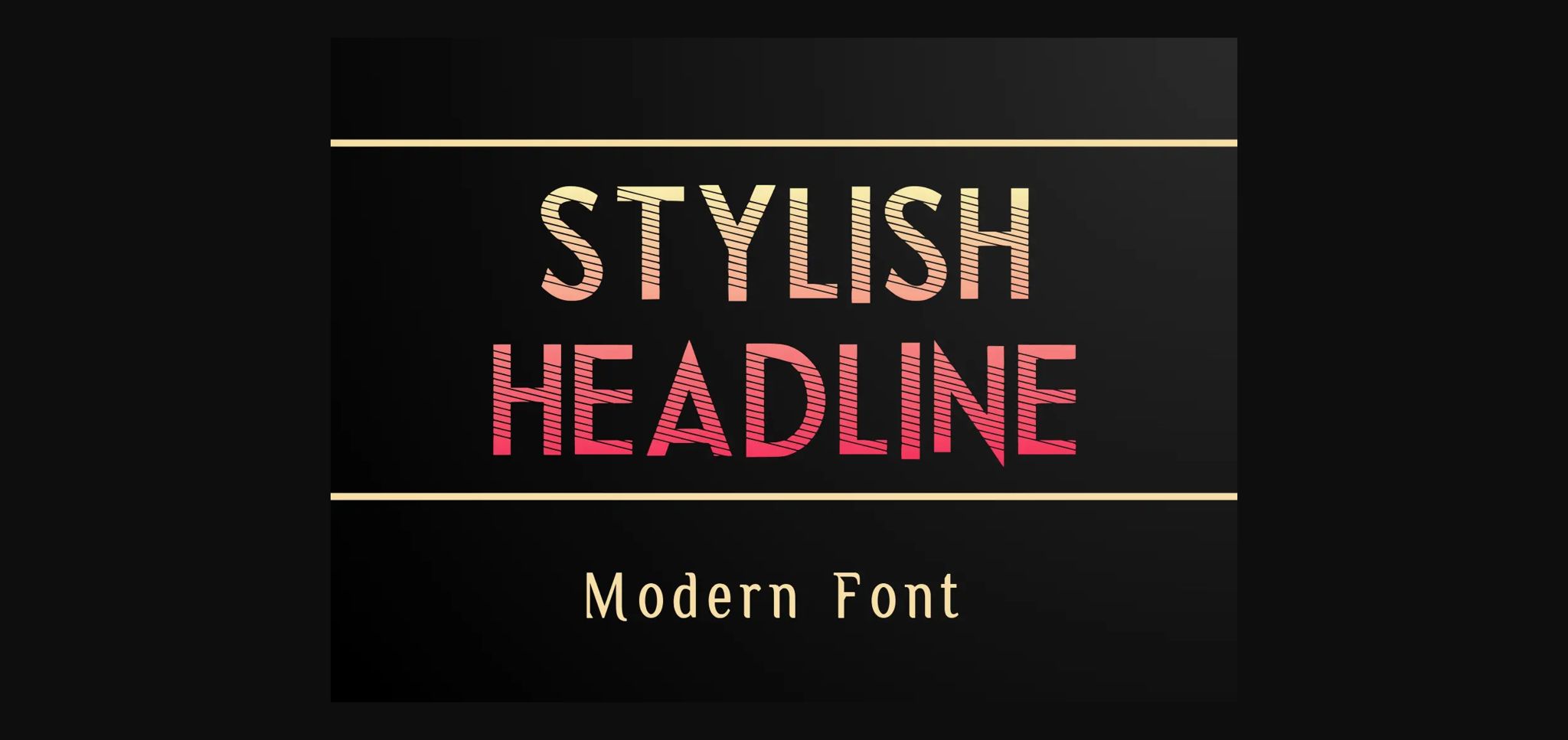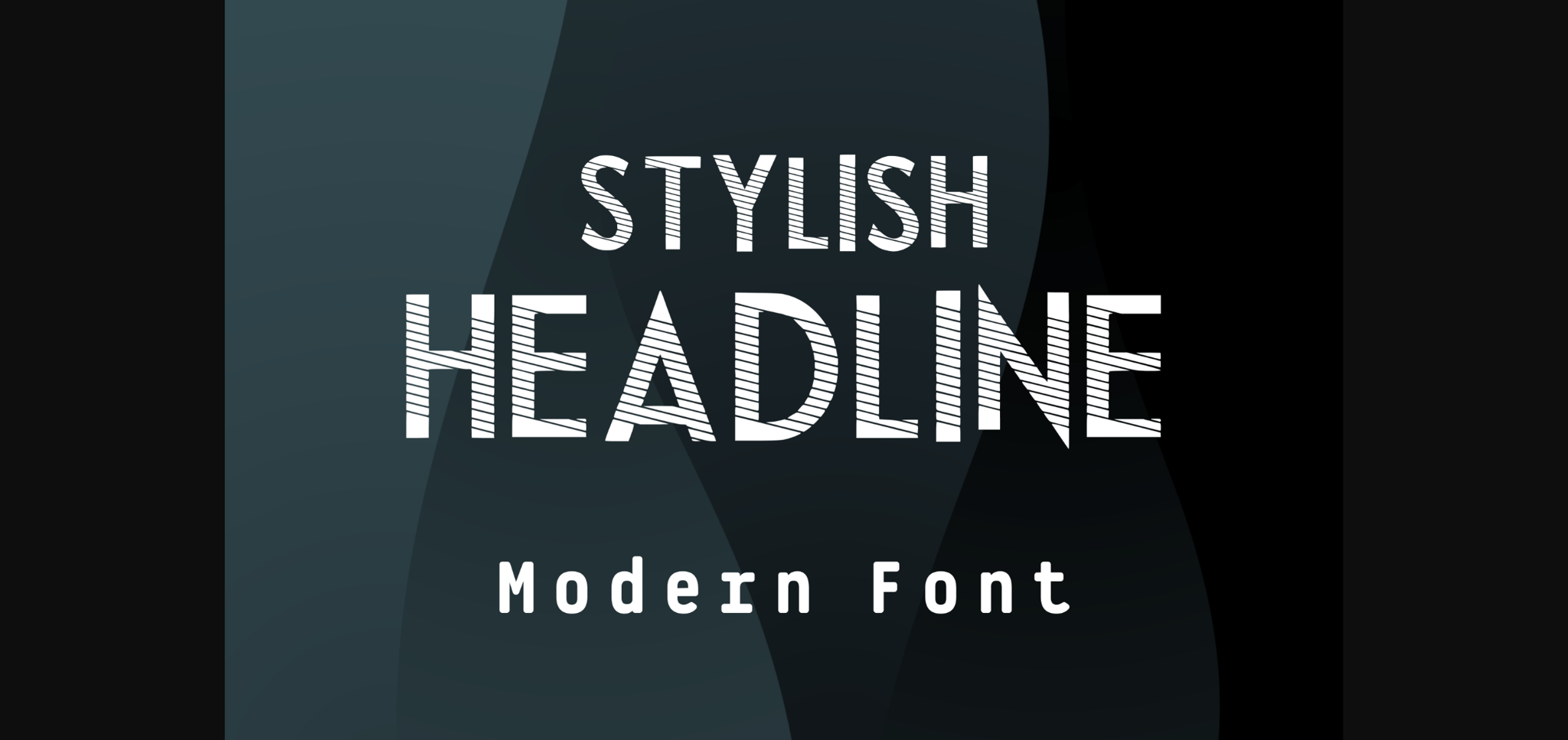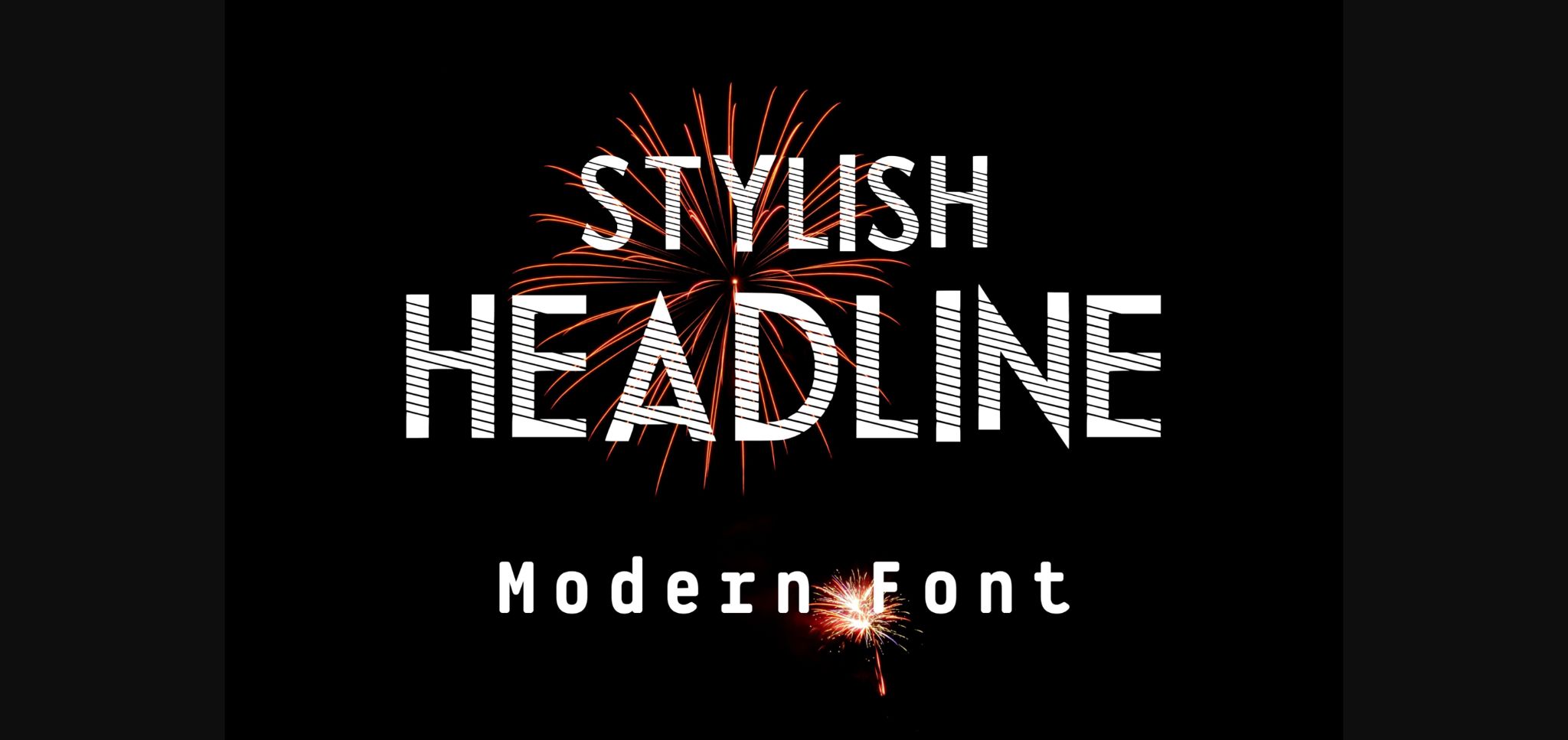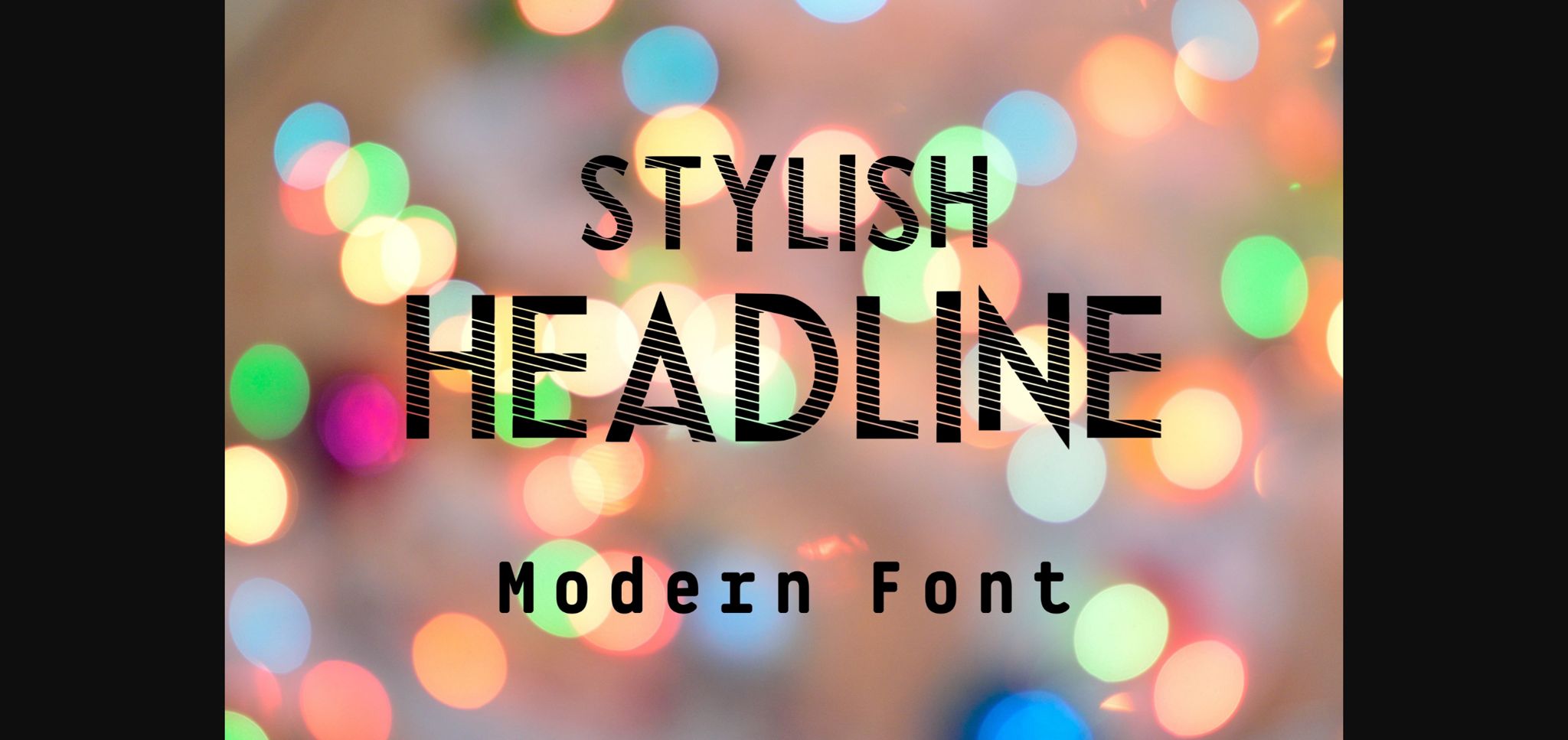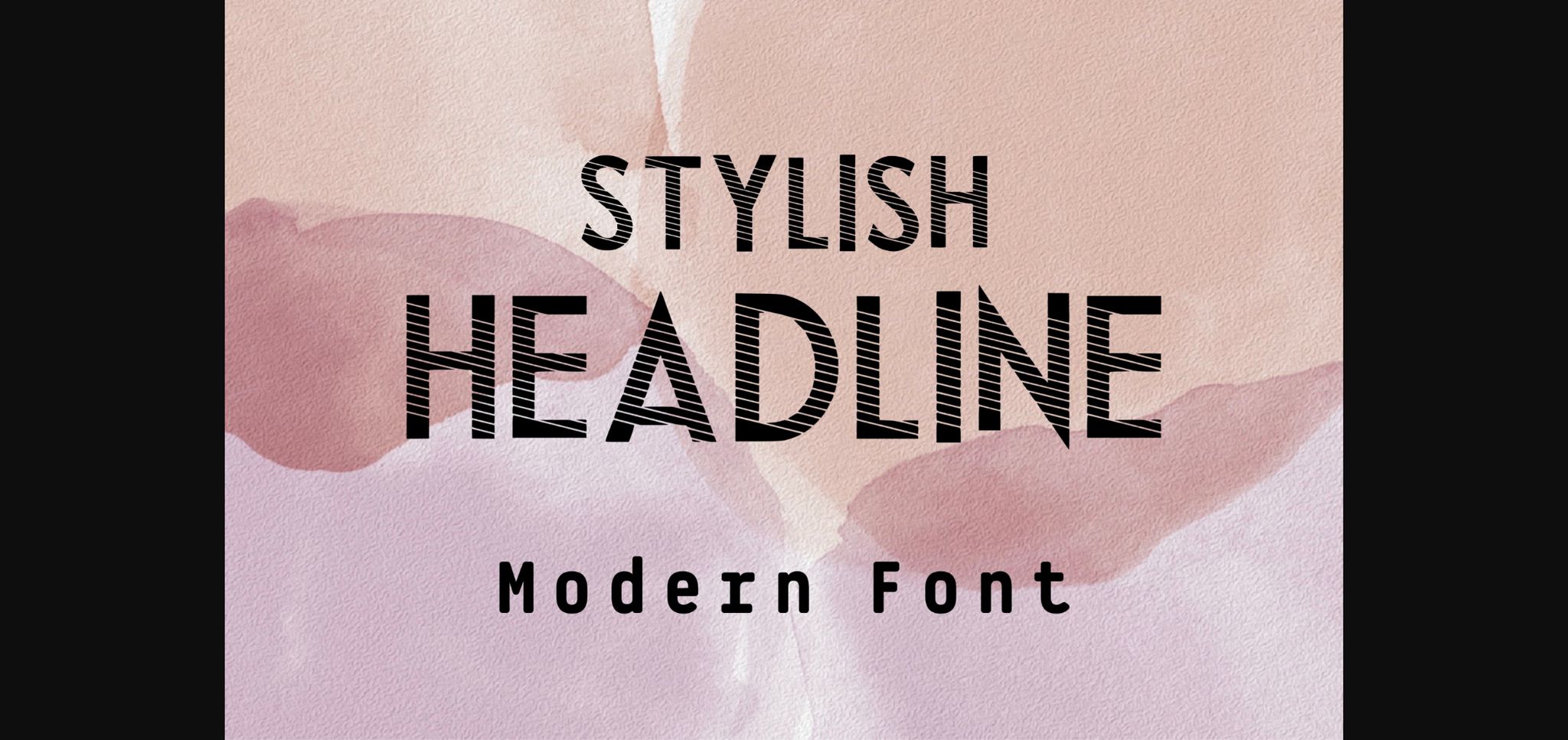
HomeSans Serif FontsStylish Headline Font Sans Serif Fonts Stylish Headline Font FacebookXPinterestWhatsApp 1 of 7 ... Stylish Headline Font Poster 2... Stylish Headline Font Poster 3... Stylish Headline Font Poster 4... Stylish Headline Font Poster 5... Stylish Headline Font Poster 6... Stylish Headline Font Poster 7... About Stylish Headline Font Stylish Headline is a modern and cool sans serif font. Use it to create beautiful headings, gorgeous invitations, stunning logos, and so much more!! DOWNLOAD NOW People also explored Windswept Heartbeat Font Pastel Cake Font Meringue Font Anggie Font Wrinkles Font Garden Party Font Rabble Font Amelya Font Carson Monogram 278 0 TagsStylish Headline Font Previous articleIonia FontNext articleGambit Fd Neue Font LEAVE A REPLY Cancel reply Comment: Please enter your comment! Name:* Please enter your name here Email:* You have entered an incorrect email address! Please enter your email address here Website: Save my name, email, and website in this browser for the next time I comment. Personal Use Free Cretino Personal Use Free Read more about this font Goldsaber Personal Use Free Read more about this font Mike Ferrari 16017 Personal Use Free Read more about this font Glowing Personal Use Free Read more about this font BLOG How to Cut Any Font on Cricut: Convert a Font to SVG (Free) Turn any font into a clean SVG so it cuts crisp on Cricut - a quick 3-step workflow using a free font-to-SVG tool. Top 7 Google Fonts Alternatives for Faster and Privacy-Friendly Web Design (2025) Exploring Font Trends Best Fonts for YouTube Videos: Make Your Thumbnails Stand Out